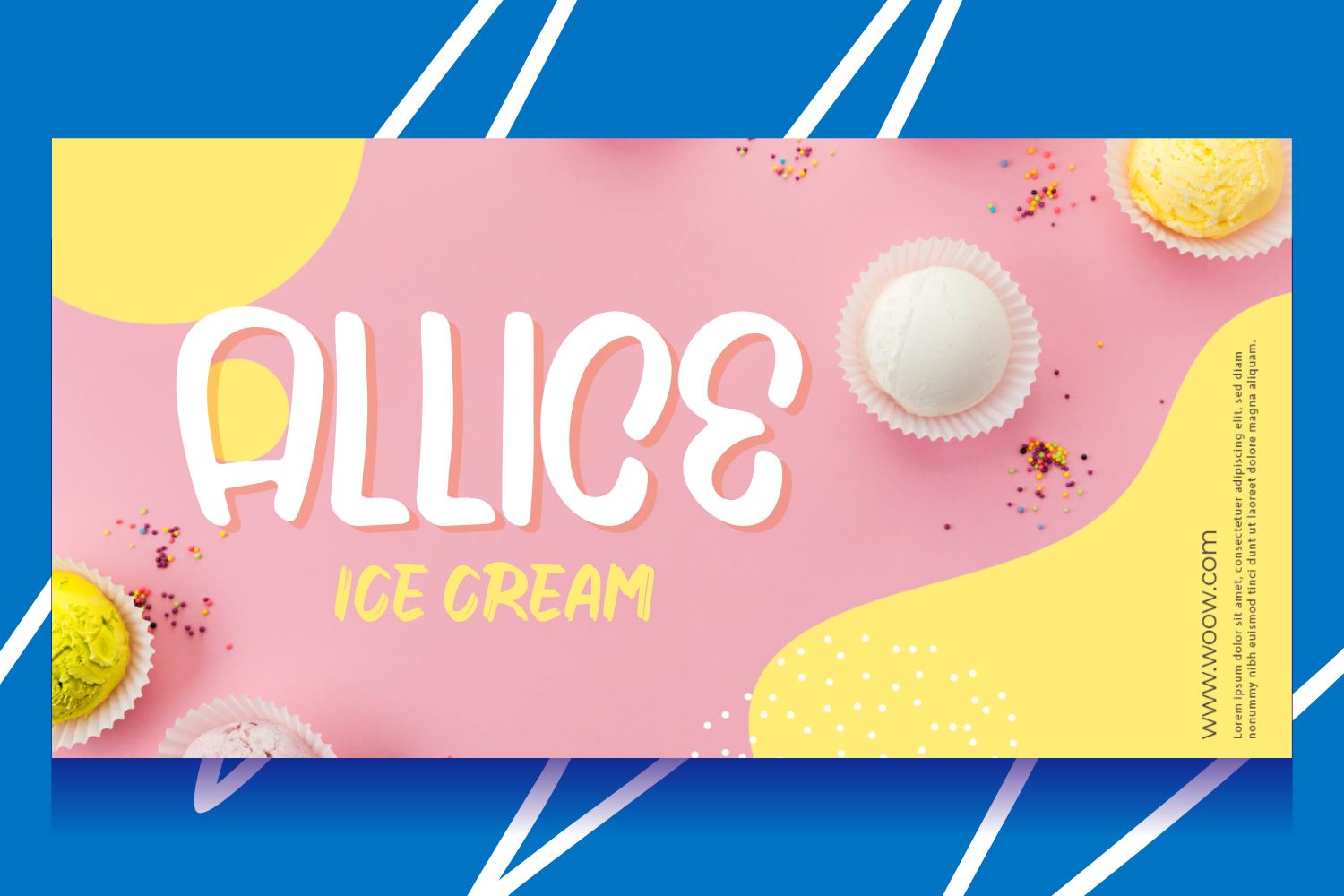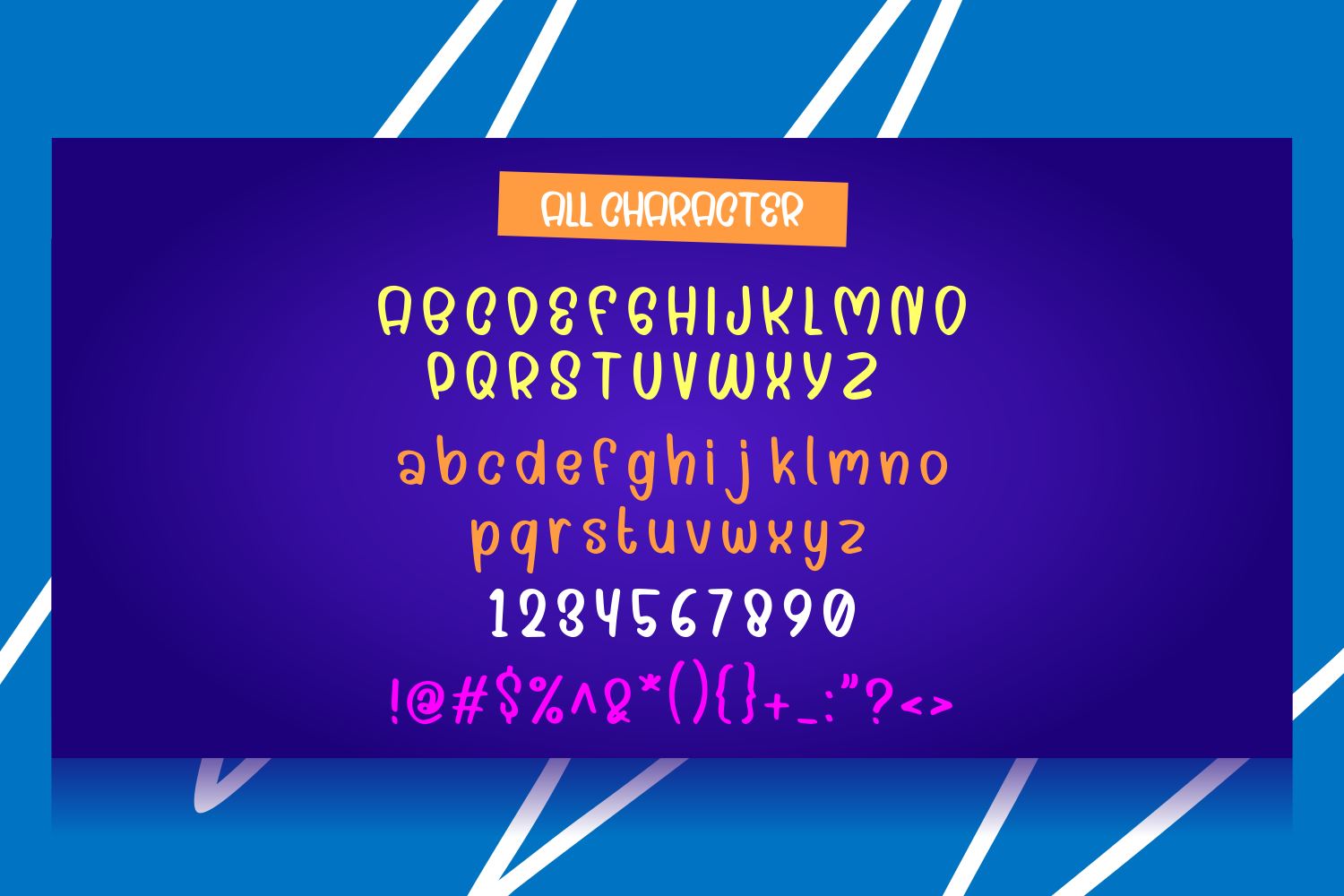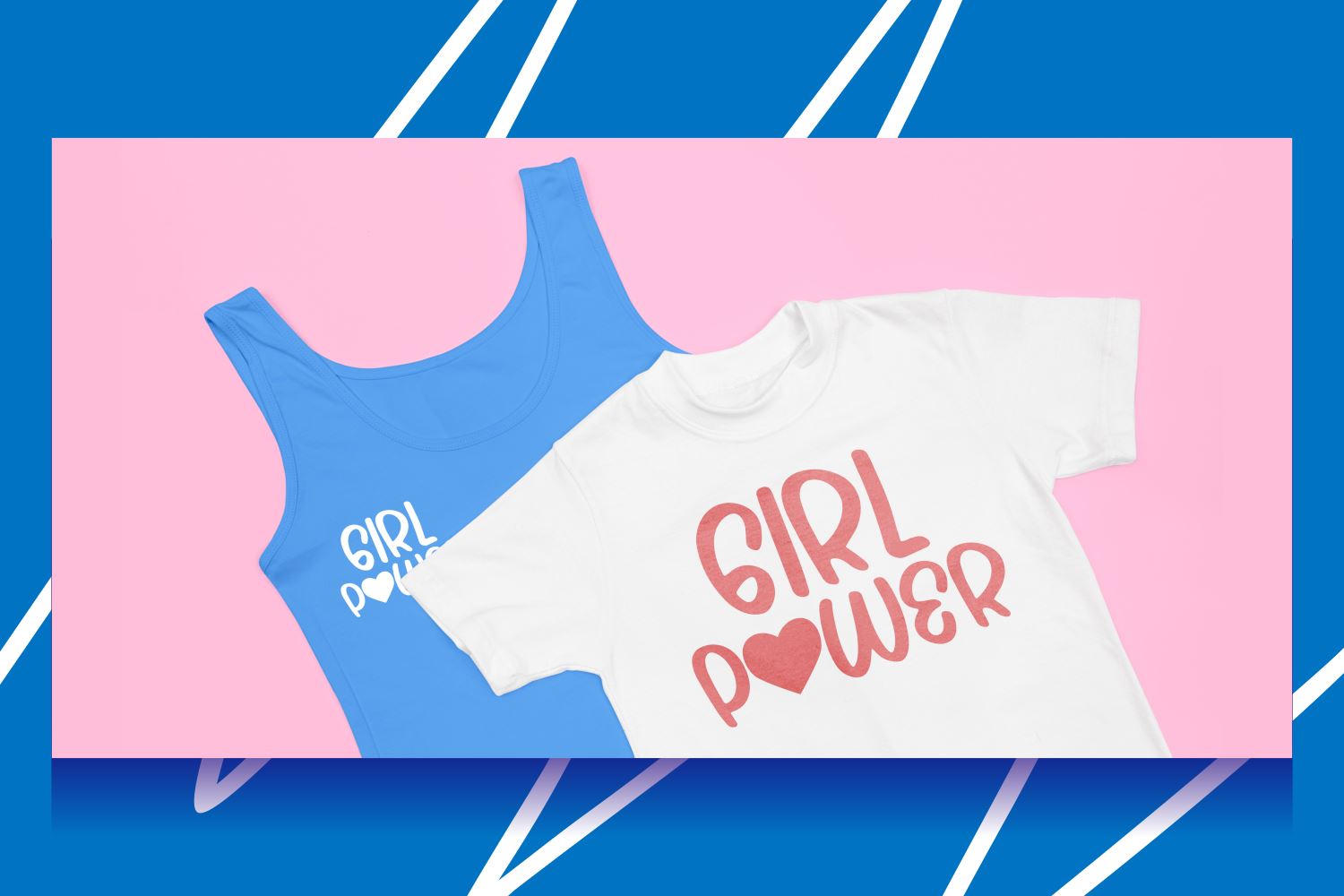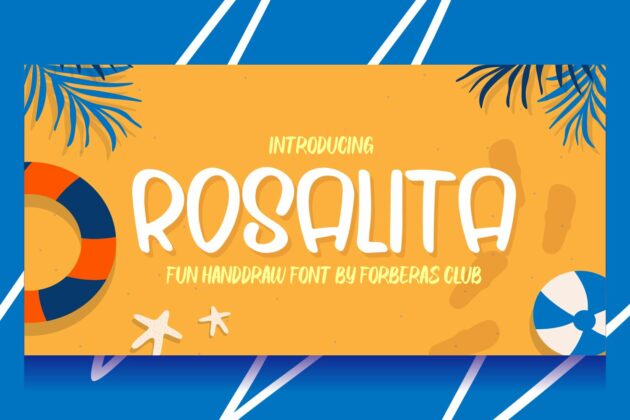
Rosalita
About Rosalita
Introducing Rosalita Font by Forberas Club Rosalita is a Modern Handwritten Font. Rosalita is perfect for book cover, product packaging, branding project, megazine, social media, wedding, or just used to express words above the background.This font includes TTF and OTF, This font also multilingual support.